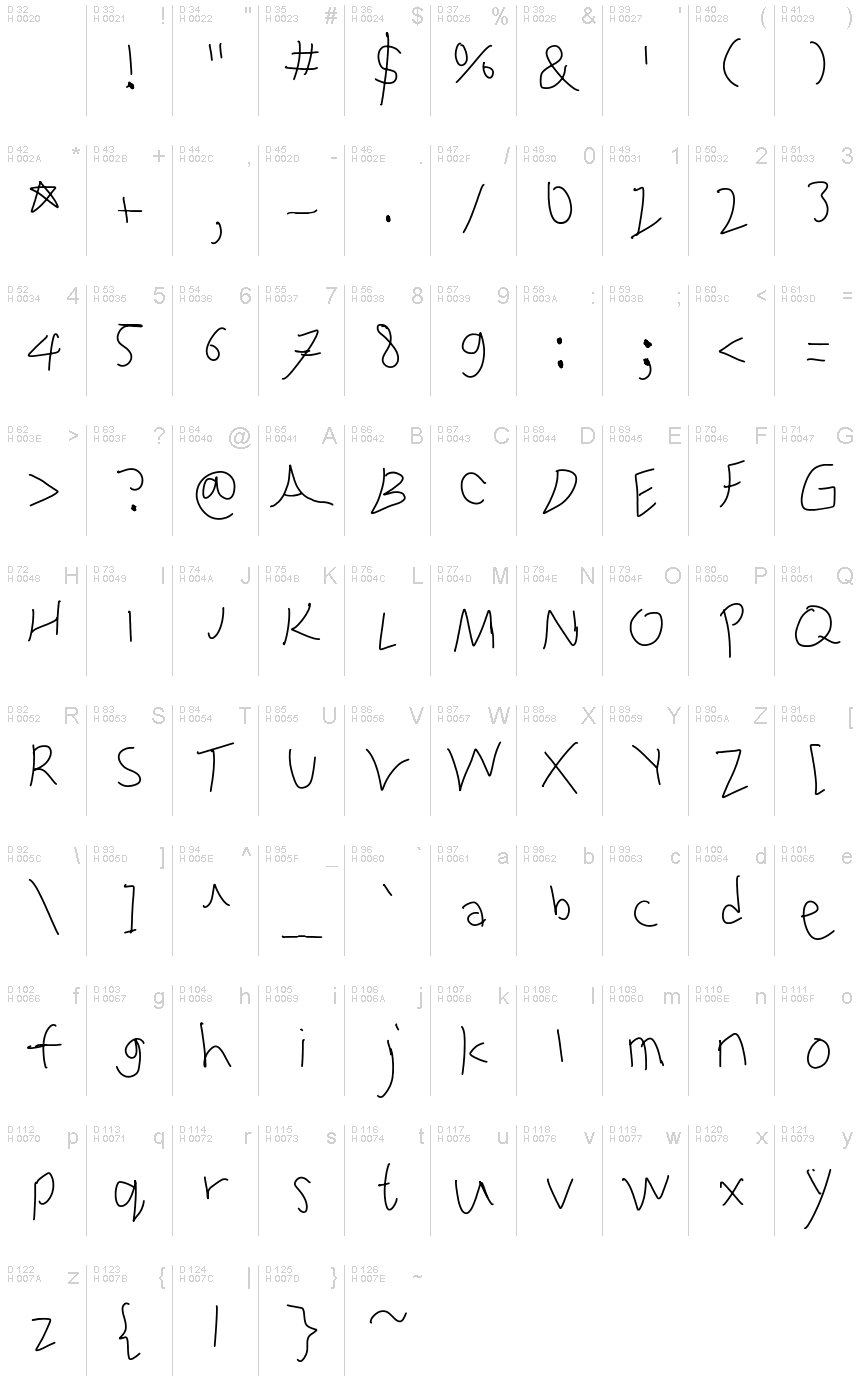
Bouncing Sans
Bouncing Sans, crafted by OrangePewPew, radiates a lively and carefree spirit with its playful handwritten style. The light font offers an airy elegance, while the unique "bouncing" baseline injects dynamic energy into the text.
Perfect for projects aiming to convey warmth and approachability, Bouncing Sans excels in informal branding, whimsical invitations, and engaging social media content. This font's distinct charm ensures your message will stand out with personality and flair.